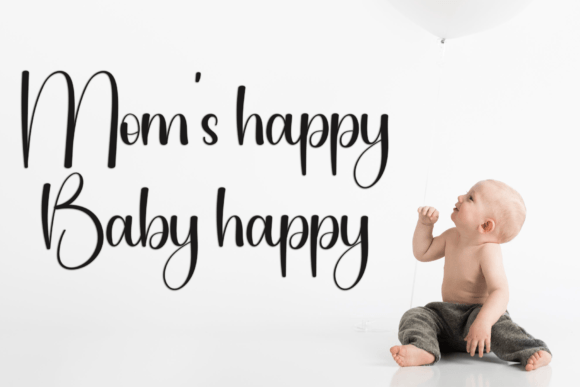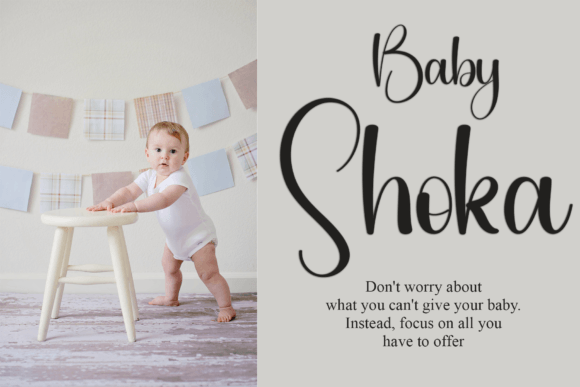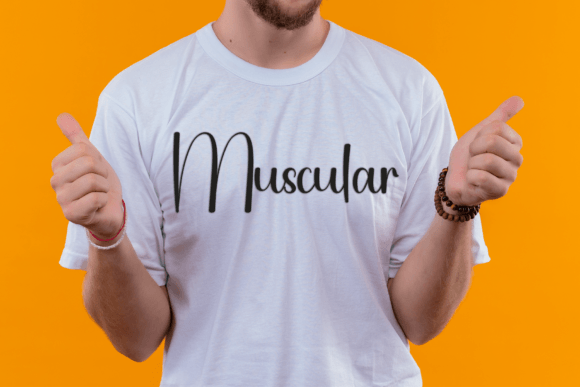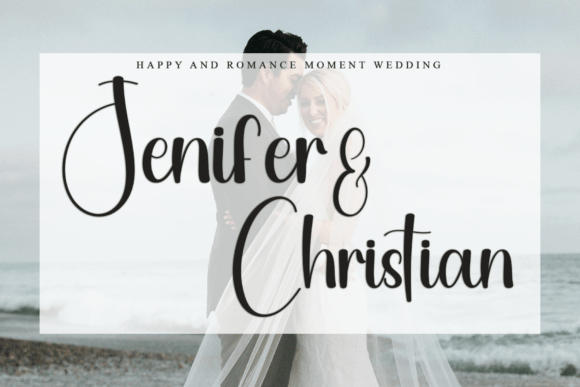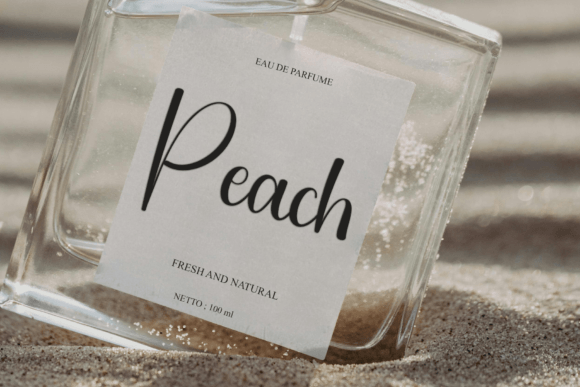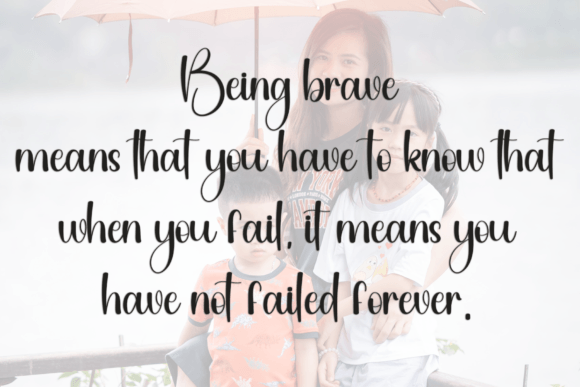
Introduction to Mother’s Font
Mother’s is a lovely font that mimics the elegance of a personal signature.
With its graceful strokes and stylish flair, this font adds a touch of sophistication to your projects Perfect for adding a personalized and handcrafted feel to your designs, Mother’s is an ideal choice for signatures, logos, and any creative work that demands a touch of individuality.
Key Features of Mother’s Font
Why Choose Mother’s Font?
Mother’s Font offers exceptional quality and versatility, making it a valuable addition to your design toolkit. Whether you’re creating for personal projects or commercial use, Mother’s Font delivers professional results.